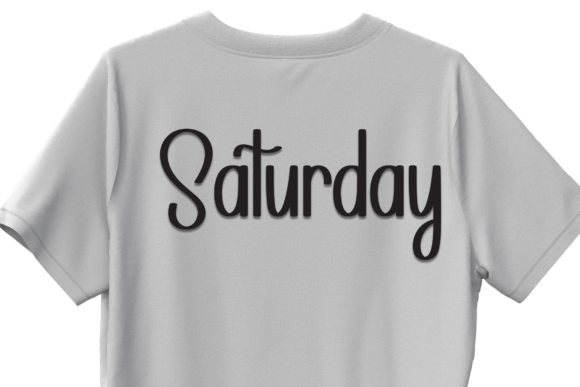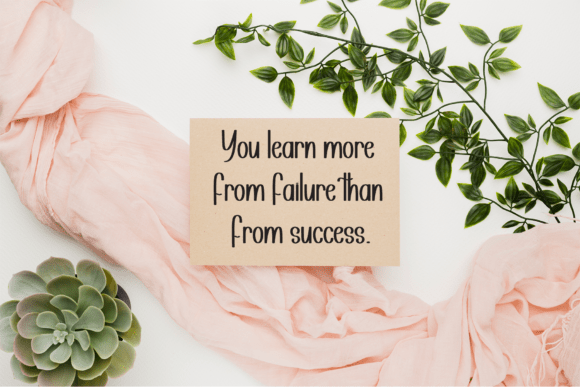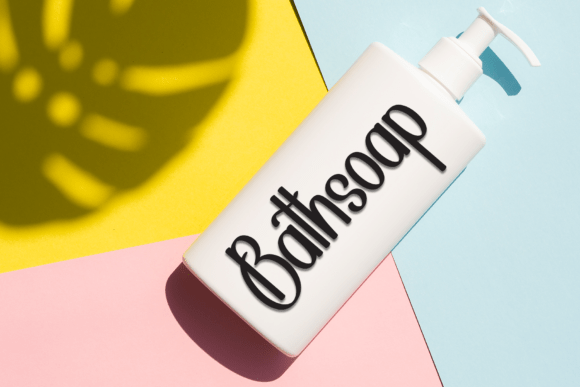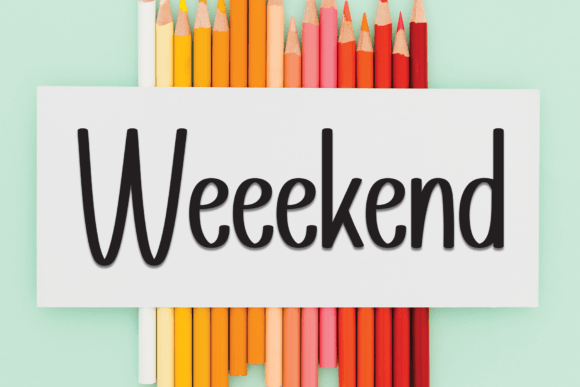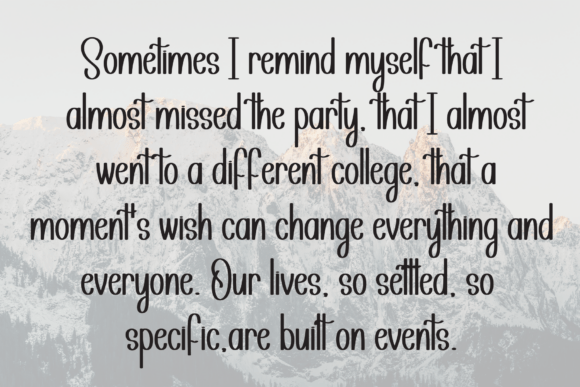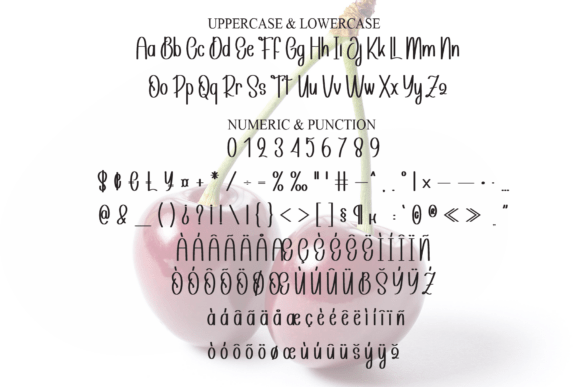
Introducing Cherry Font: The Epitome of Elegance and Playfulness
In the realm of typography, few fonts manage to strike a balance between elegance and playfulness as effortlessly as Cherry Font. This stylish handwritten script font has been turning heads with its unique blend of sophistication and charm, making it a go-to choice for designers and crafters looking to add a personal touch to their projects.
The Characteristics of Cherry Font
Cherry Font is distinguished by its flowing curves and natural rhythm, which give it an organic, handcrafted feel. Each stroke is carefully designed to convey a sense of elegance, yet the overall effect is playful and approachable. This duality makes Cherry Font incredibly versatile, suitable for a wide range of applications from formal invitations and branding materials to social media graphics and craft projects.
Adding a Personal Touch to Your Designs
One of the key advantages of Cherry Font is its ability to add a personal, charming touch to any design. In an era where digital content often feels impersonal, Cherry Font offers a way to inject warmth and personality into your projects. Whether you’re designing wedding invitations, crafting a brand identity, or simply creating engaging social media content, Cherry Font can help you connect with your audience on a more personal level.
Bringing Warmth and Sophistication to Your Projects
The graceful design of Cherry Font brings a level of sophistication that’s hard to achieve with more generic fonts. Its elegant strokes and balanced curves lend a sense of refinement to any project, making it perfect for designs that require a touch of luxury or high-end appeal. At the same time, Cherry Font’s playful undertones ensure that your designs never feel too formal or intimidating.
Applications of Cherry Font
Cherry Font’s versatility is one of its most compelling features. Here are just a few examples of how you can use this beautiful font in your designs:
- Invitations: From wedding invitations to baby shower announcements, Cherry Font adds a touch of elegance and personal warmth.
- Branding: Use Cherry Font to create a unique and memorable brand identity that stands out from the crowd.
- Social Media: Elevate your social media content with Cherry Font, making your posts and stories more engaging and visually appealing.
- Crafting: Whether you’re creating handmade cards, scrapbooking, or working on other craft projects, Cherry Font can add a professional yet personal touch.
Why Designers and Crafters Love Cherry Font
Designers and crafters alike are drawn to Cherry Font for its unique combination of style, versatility, and personality. Here are a few reasons why:
- Ease of Use: Cherry Font is incredibly easy to read and works well in both digital and print formats.
- Customization: The font’s flexibility allows for a high degree of customization, making it easy to adapt to your project’s specific needs.
- Emotional Connection: Cherry Font has a way of evoking emotions, making it perfect for projects where you want to create a strong connection with your audience.
Cherry Font is more than just a font – it’s a design element that can transform your projects with its elegance, playfulness, and charm. Whether you’re a professional designer or a crafting enthusiast, Cherry Font offers a world of creative possibilities. With its flowing curves, natural rhythm, and graceful design, Cherry Font is sure to bring warmth, sophistication, and creativity to any project you undertake.